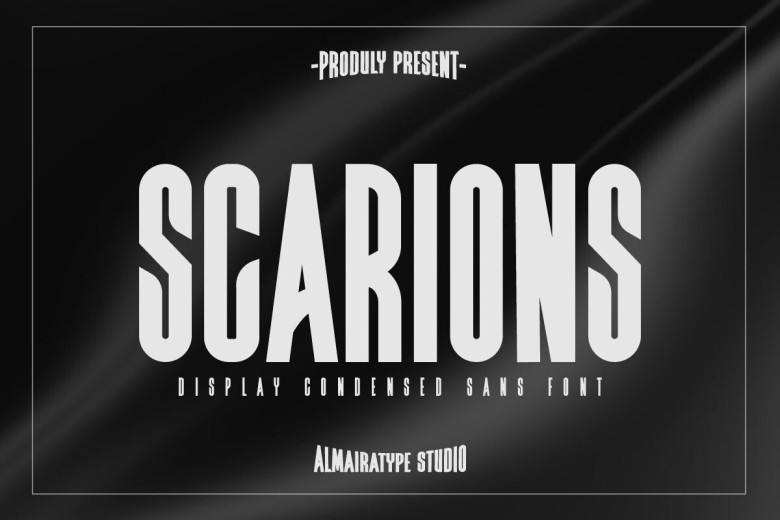
Scarions Font
Scarions is an innovative sans serif font which exudes modernity and flexibility. Its clean edges and crisp lines give this font its contemporary flair, making it perfect for web branding, editorial work and editorial design.
Scarions’ minimalist yet elegant design brings an updated aesthetic into any design; making this font an excellent option for designers seeking an updated look.
Scarions Sans Serif Font